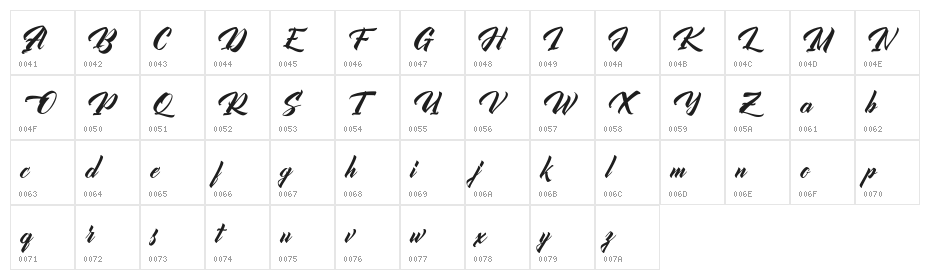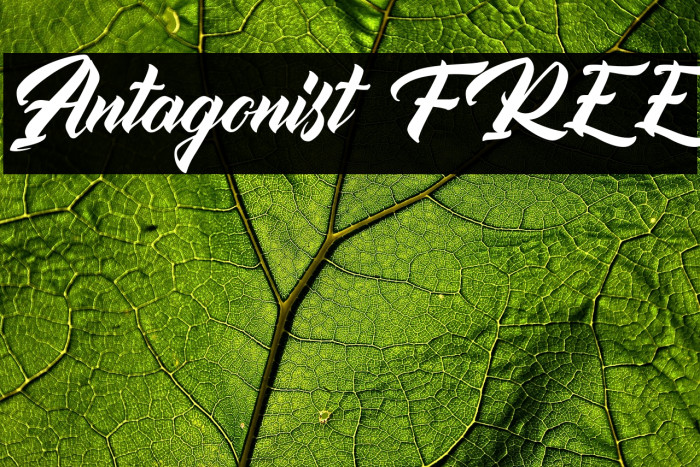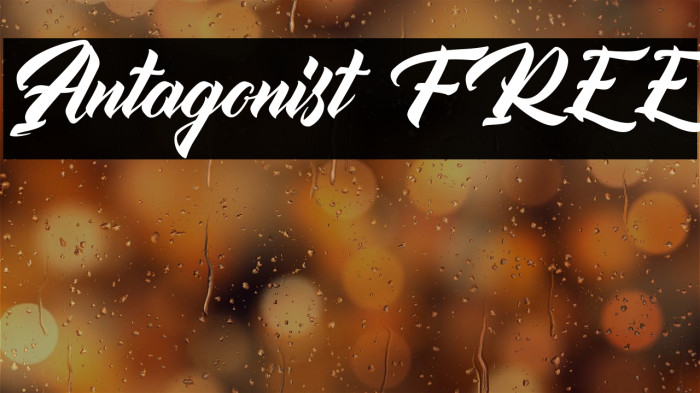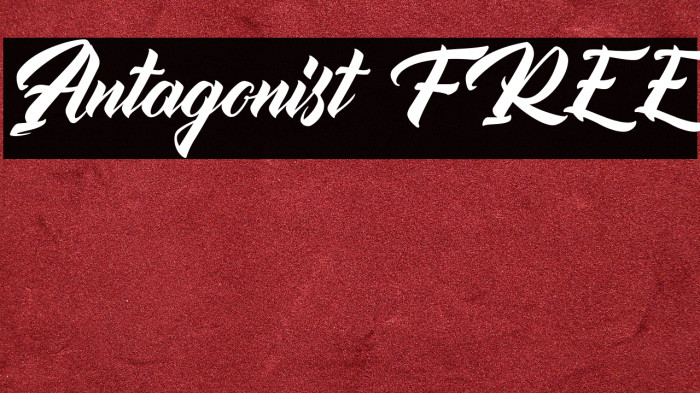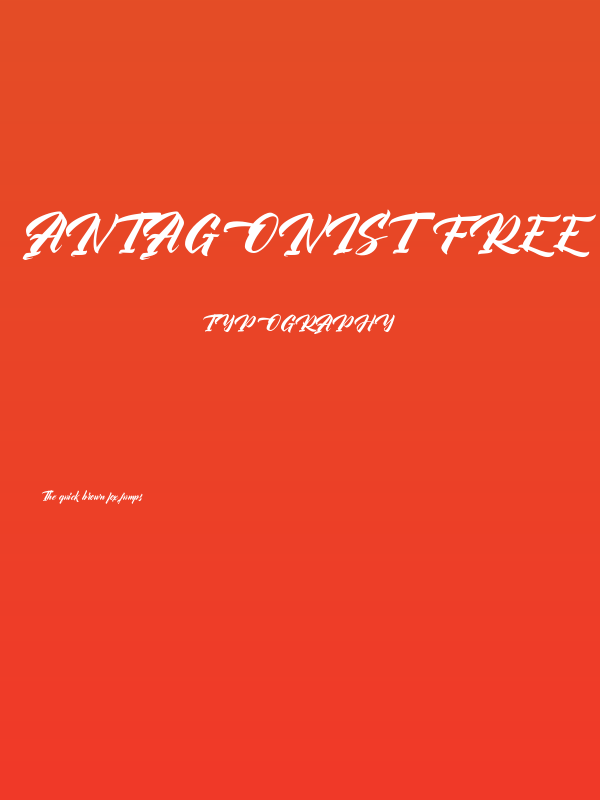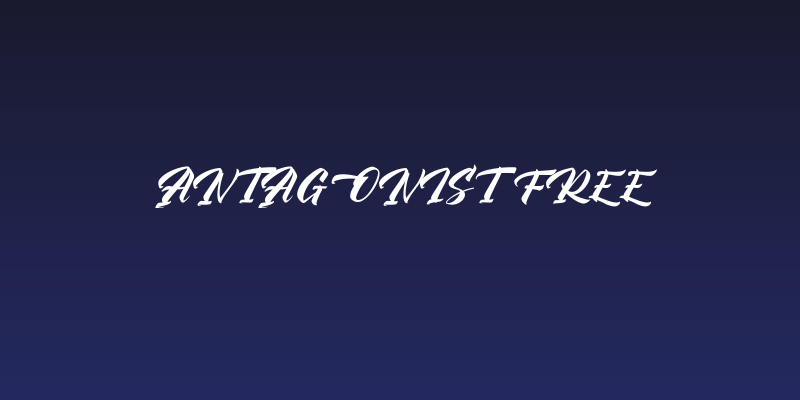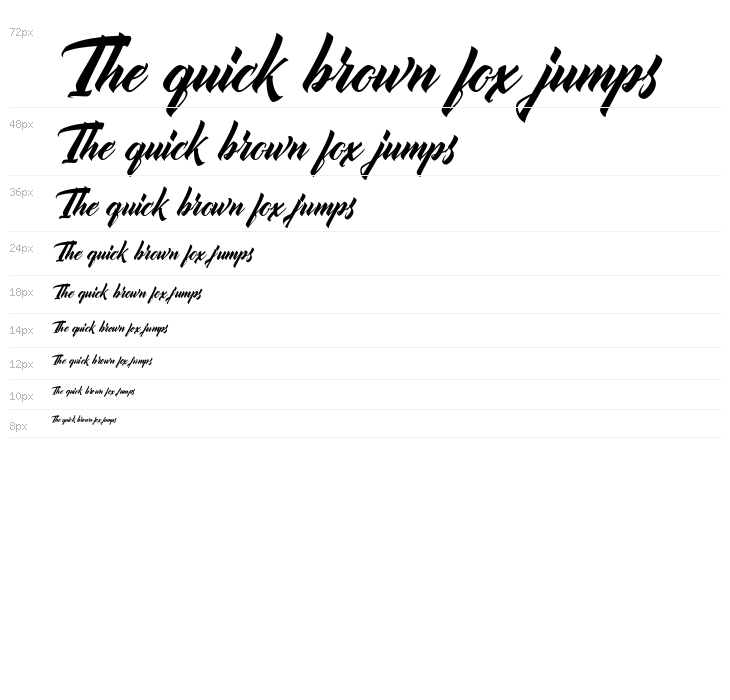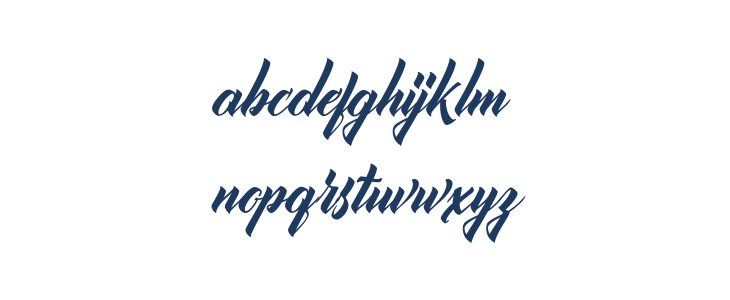
Antagonist FREE Font
Antagonist FREE Description
This font features a dynamic and expressive script style, characterized by its bold and fluid strokes. The letters are connected in a flowing manner, giving it a handwritten appearance. The uppercase letters are slightly more ornate, with exaggerated flourishes, while the lowercase letters maintain a consistent rhythm and balance. The overall design is both elegant and energetic, making it suitable for creative and artistic projects. The font's boldness and high contrast in stroke thickness enhance its visibility and impact, making it ideal for attention-grabbing headlines or titles.
| Proposed Projects | Ideal for wedding invitations, branding, logos, and artistic posters. |